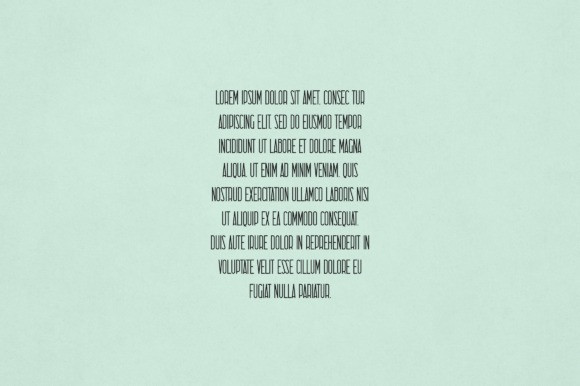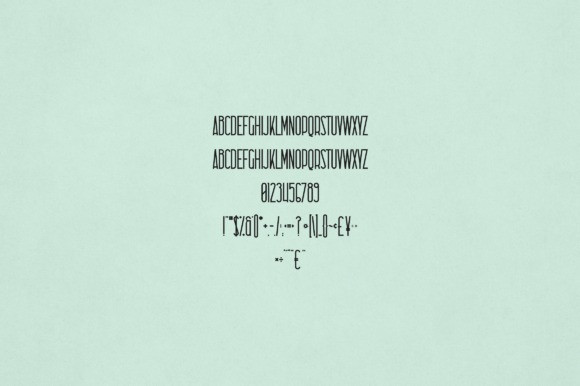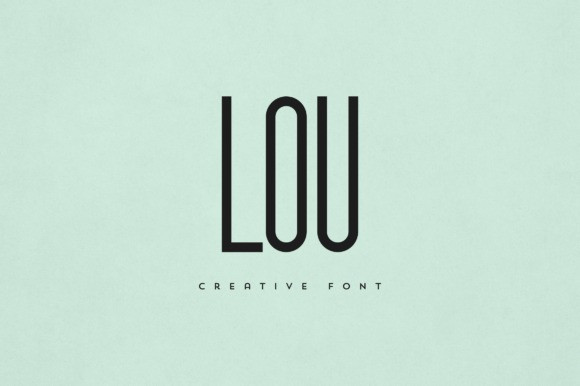
Lou Font
Lou Font is an elegant and versatile display font that will make your typography truly unique! It will enchant every logo, branding, headline, or plain text!